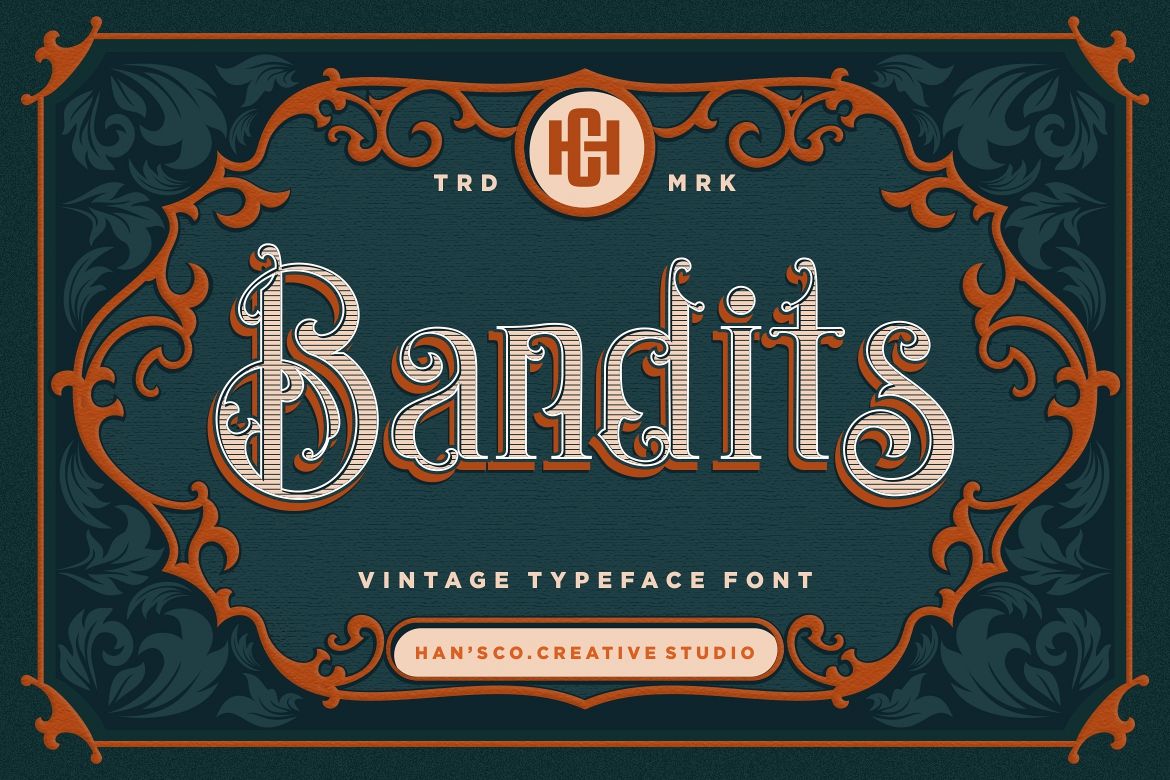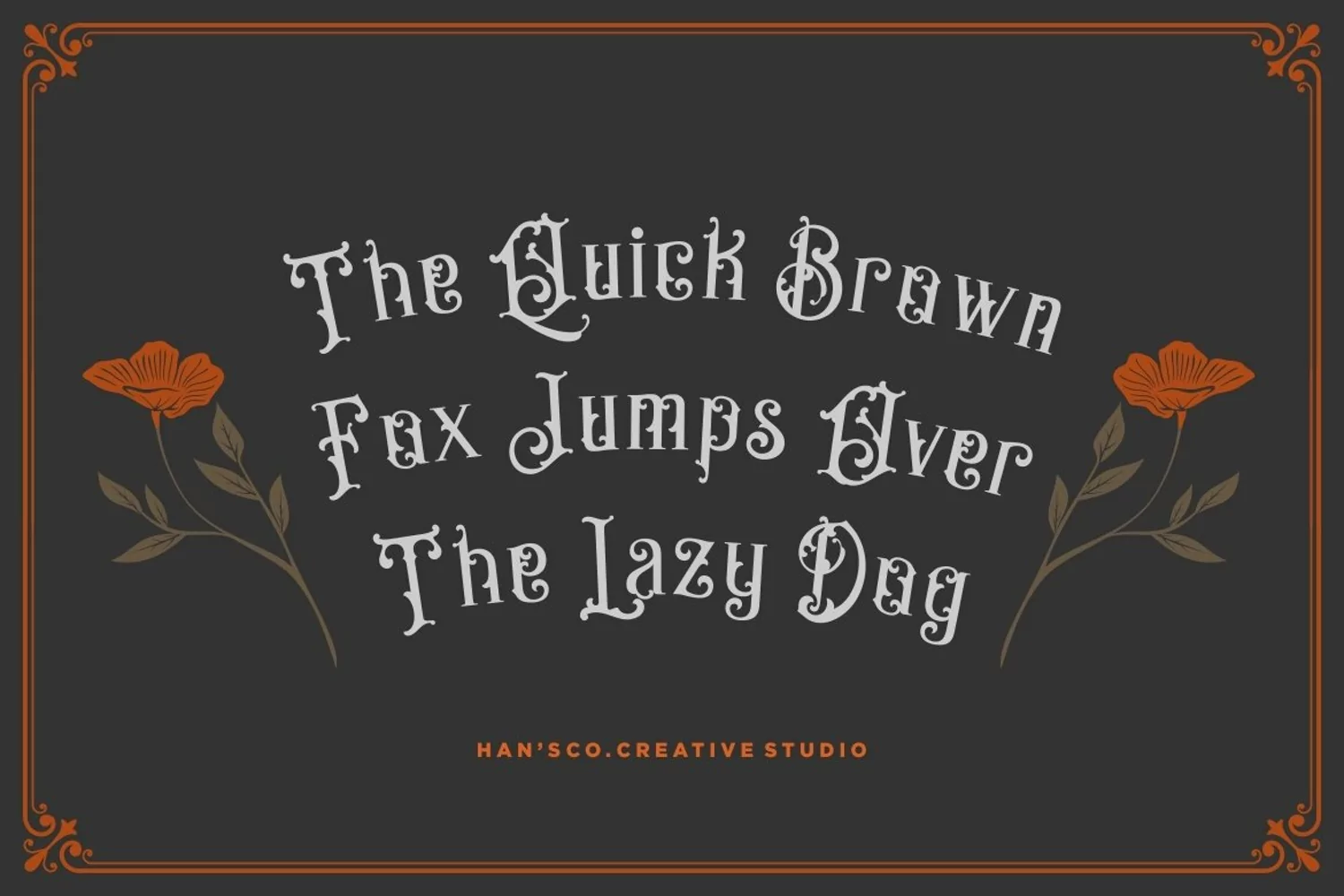
Bandits Vintage Font
BANDITS FONT
Bandits is a Vintage typeface font. This collection of font is perfect for everything your project with vintage, retro, wild or organic style.
Bandits-Outline
Bandits-Regular
Bandits-Shadow
Bandits-Striped